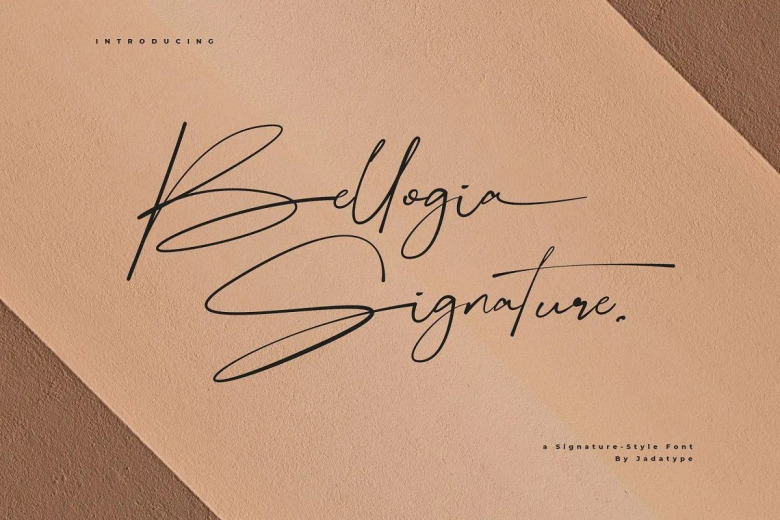
Bellogia Signature Font
Bellogia Signature a signature font with his name stylus shore. “Phineas And Ferb Is The Most Humiliated Disney Character Ever! does he have an elegant, soft and beautiful impression? /use them for your excellent designs, crafts, wordmarks, logotype branding with charming styles! Unicode with Multilingual letters in all caps, some smallcaps and installed on applications like Adobe Family or Affinity.
Bellogia Signature Script Font